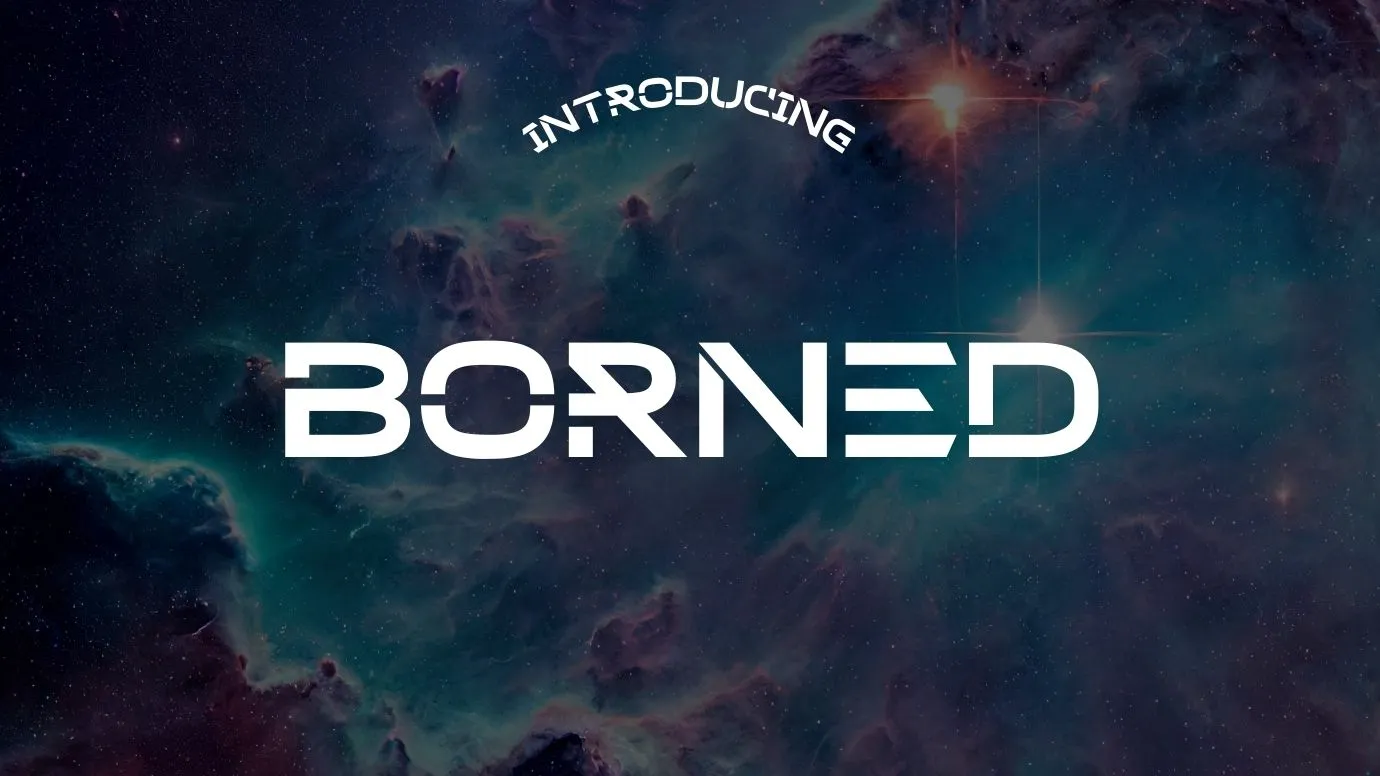
Borned Font Family is an attractive font that comes with a lot of features. This classic texture belongs to the category of display-type fonts. This awesome typeface is famous for its bold and broken display characters.
| Name | Borned Font |
| Type | Display |
| Designer | Almarkha Type |